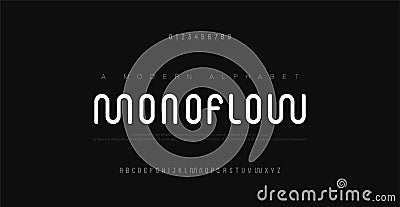
Minimal Modern Alphabet Fonts And Numbers. Abstract Urban Rounded Line Font Typography Typeface Uppercase. Vector Illustration
Minimal modern alphabet fonts and numbers. Abstract urban rounded line font typography typeface uppercase. vector illustration #187323136
Minimal modern alphabet fonts and numbers. Abstract urban rounded line font typography typeface uppercase. vector illustration.